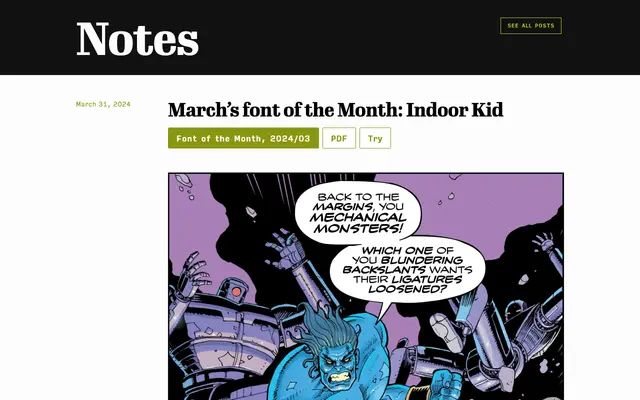
Indoor Kid
David Jonathan Ross · 2024
A variable comic book lettering superfamily developed with comics writer Ellis Bojar, offering a wide range of widths, weights and a custom Emphasis axis for typesetting dialogue and captions.
Built over nearly three years of research into pre-digital comic book letterers including Gail Beckett, Tom Orzechowski and Gaspar Saladino, Indoor Kid synthesises their approaches into a flexible variable font system rather than reviving any single hand. A custom Emphasis axis allows letterers to enlarge and vertically centre words within a text block in a single slider movement, solving a longstanding copyfit problem in digital comics production. Three character variants per letter add baseline bounce, and the glyph set includes manga-influenced symbols such as breath marks, stars and musical notes.
Designed explicitly to replicate the conventions of pre-digital comic book lettering, with variable width and weight axes and features specific to comics typesetting; sits firmly in the display category as a specialised lettering system rather than a general-purpose text face.